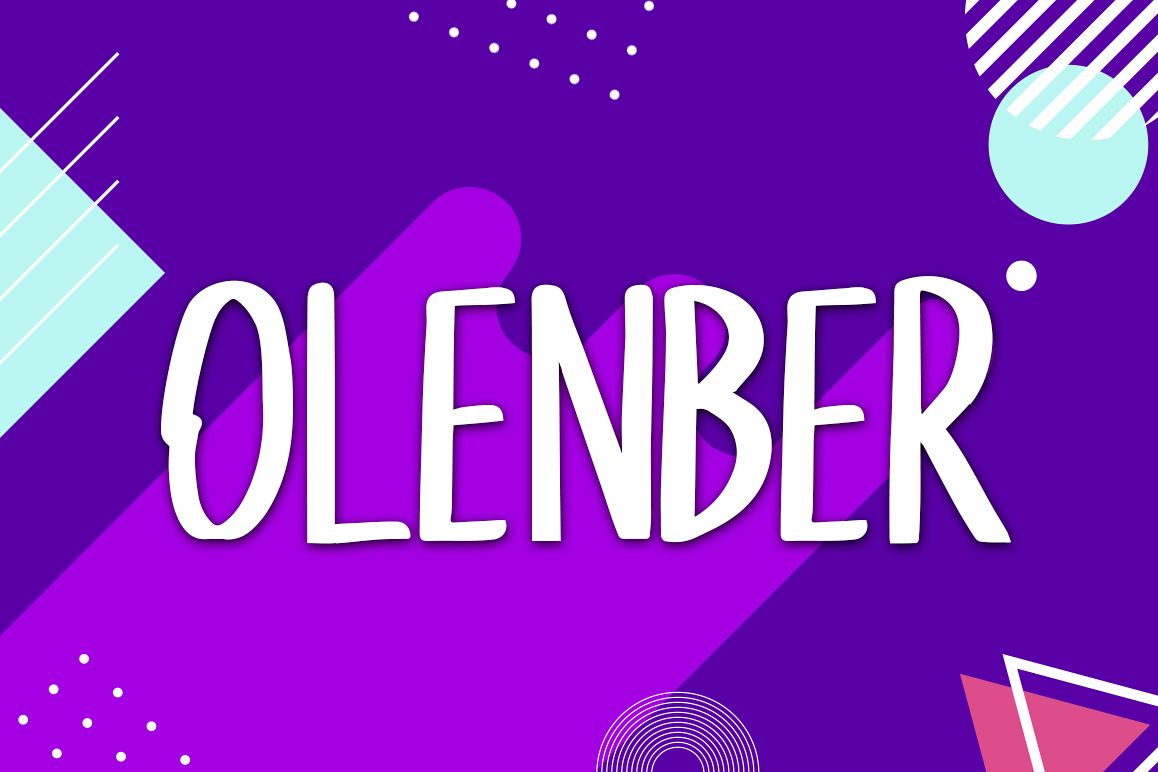
Olenber
Olenber-Regular
Olenber Font is cheerful handmade brush font, with a bold weight perfect for adding some romance and charm to your designs. This script functions most strongly as a display or headline font. suitable for logo, logotype, branding, fashion, label, book cover, t-shirt, instagram post, and other
- Basic Latin A-Z and a-z
- Numbers
- Symbols
- Opentype Feature
- PUA Encode